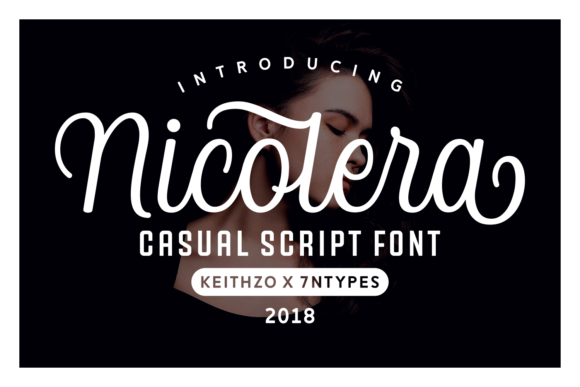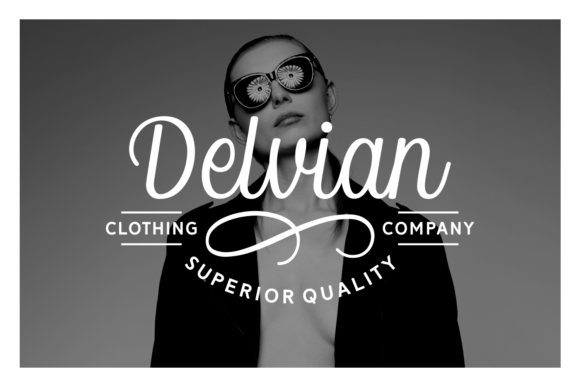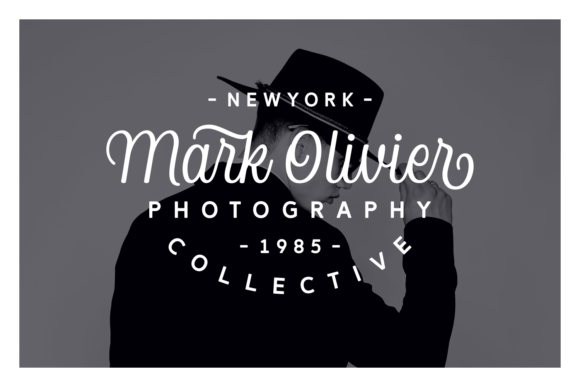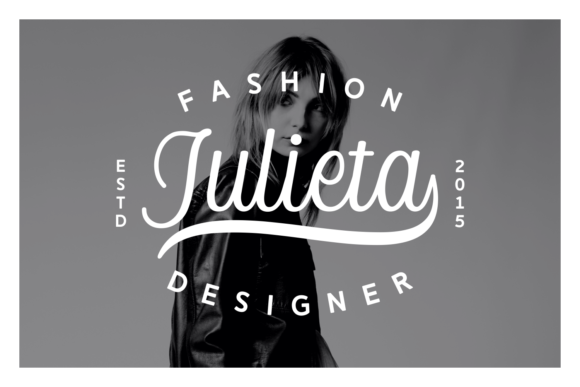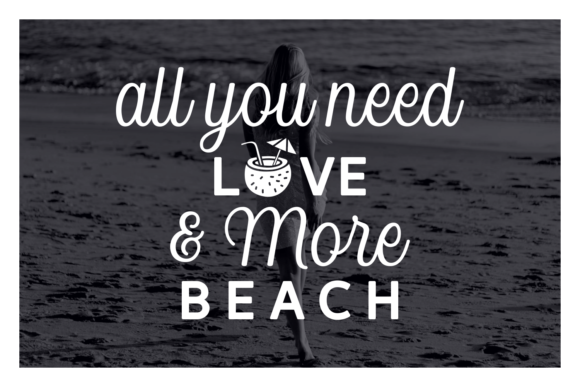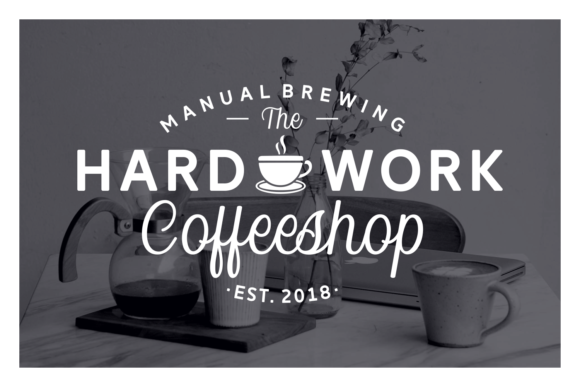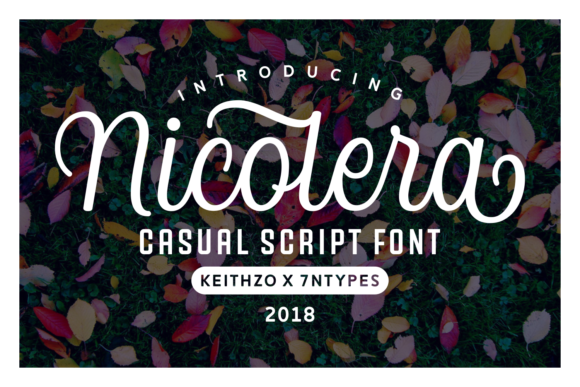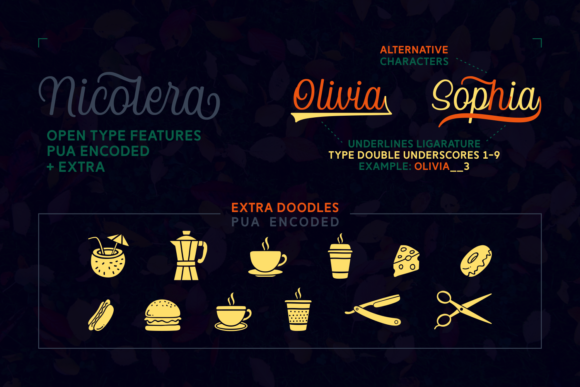
Nicolera Font
Nicolera is a casual, yet very elegant handwritten typeface.
The fact that Nicolera is very legible, combined with the smooth roundings and astonishing details, make it a great font for playful branding.
It comes with stunning alternates, featuring beautiful terminal swashes, as well as a mini-set of dingbats.